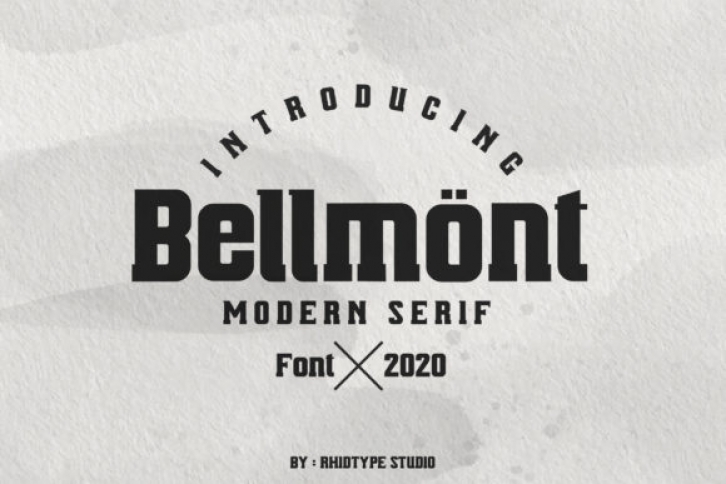
Bellmont is a classy serif font. It features elegant and stylish characters which make it the perfect font for logos, social media posts, cute greeting cards, and more!